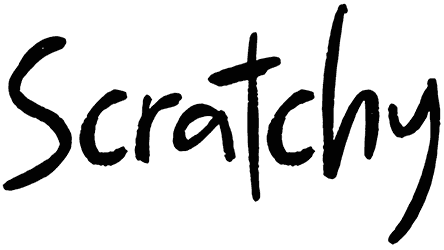
Barett Street Font
The cool and modern style of this handwritten font could be a perfect visual for a tattoo artist’s business card. This signature font, with its casual and catchy letterform, is gonna add a charming vibe to your layout. Set the Barett Street font on your new project and make it memorable.
Designed by: Cat.B